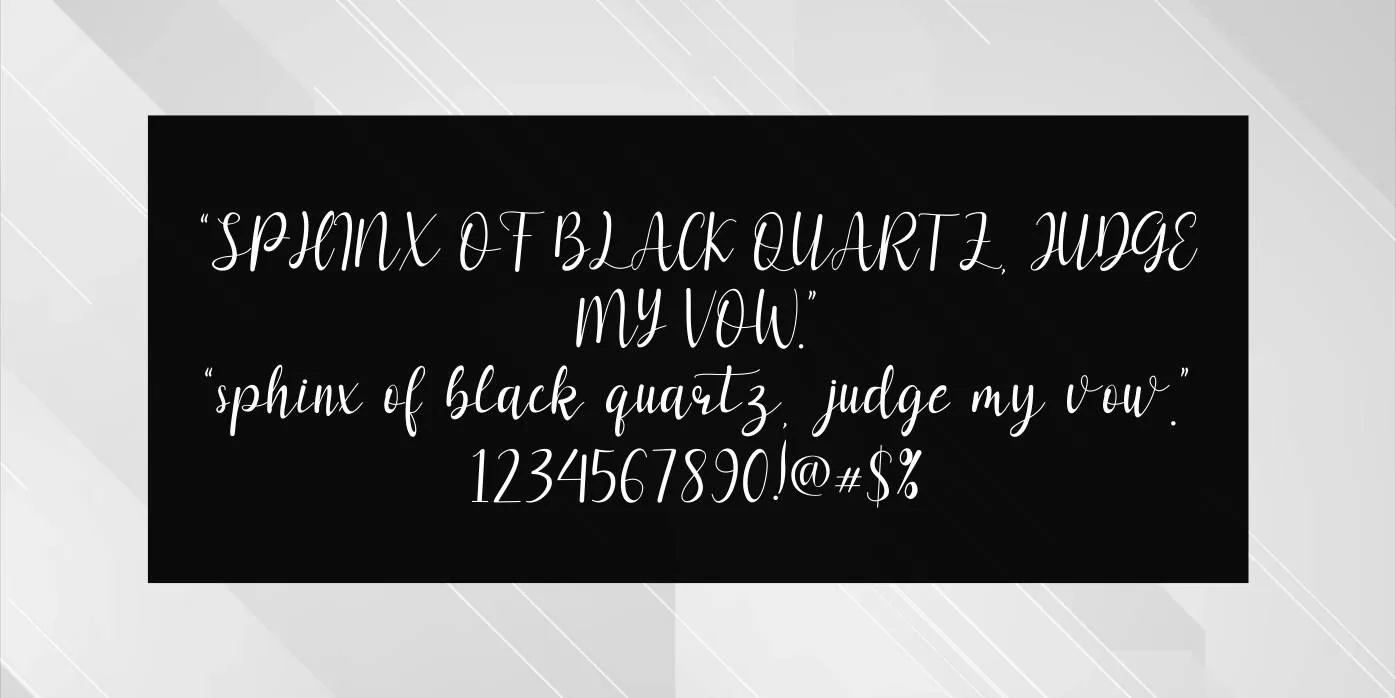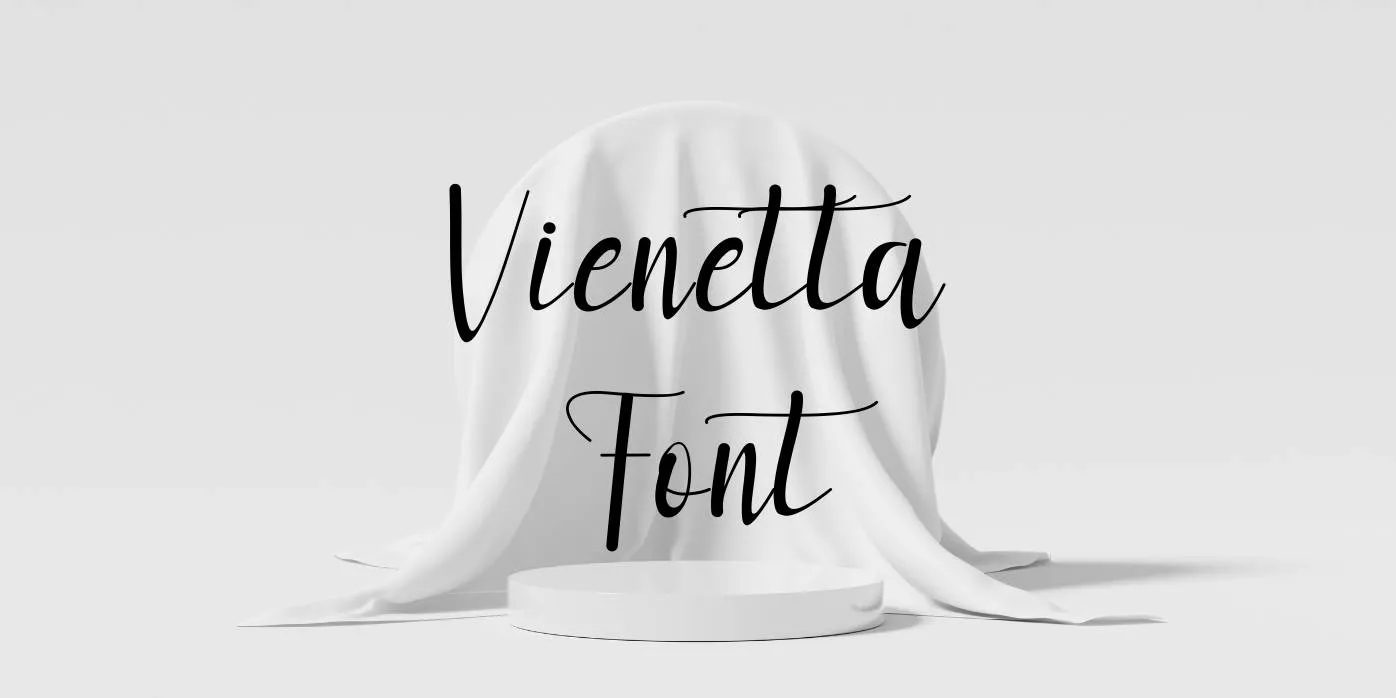
Vienetta Font
Vienetta Font is a calligraphy typeface created by Austrian designer Josef Tscherne in 1965. The font is named after the Italian ice cream company Gianetti, whose products were often advertised with the typeface. Tscherne’s design was based on the concept of a “modular” typeface, which could be used for both display and text purposes. This font style is commonly used among designers due to its both copy-paste and pairing function.
The Font family includes four different styles: light, medium, bold, and black. The Font has been used extensively in advertising and branding, particularly in the food and beverage industry. It has also been used for movie posters and book jackets. The style of the typeface is much similar to the las vegas font with the same connected letterforms and high-quality graphics you can try for your valuable designs.